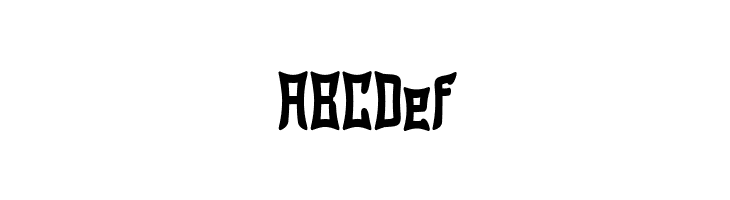
Nightchilde Condensed Font
- Font: Nightchilde Condensed
- Weight: Condensed
A bold, narrow font with sharp, angular edges and a modern, edgy style.
( Fonts by Dieter Schumacher )